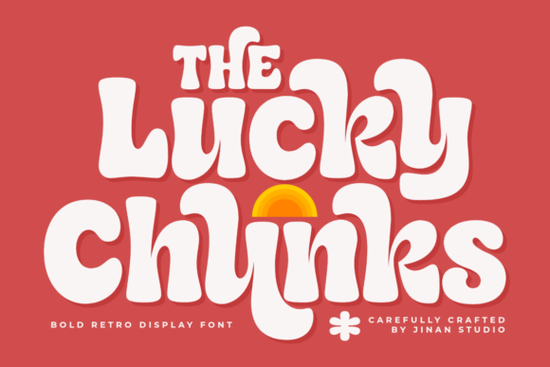
If you're looking for a display font that feels both nostalgic and fresh, Lucky Chunks Font might be exactly what your next project needs. With its bold, rounded letterforms and groovy 70s-inspired charm, it brings warmth and personality to everything from t-shirt designs to café menus. Unlike overly stiff retro fonts, Lucky Chunks balances chunky shapes with soft curves, making it approachable and fun without sacrificing legibility.
What sets this font apart is how effortlessly it fits into creative projects that lean into handmade aesthetics or vintage vibes. Whether you’re designing packaging for a small-batch product, creating social media banners for a local event, or crafting custom stickers for your Etsy shop, Lucky Chunks adds character without overwhelming your layout.
When should you use Lucky Chunks in your designs?
This font shines in contexts where friendliness and expressiveness matter more than formal precision. Think:
- Branding for cafés, bakeries, or boutique shops its cheerful tone pairs well with warm color palettes and hand-drawn illustrations.
- Kids’ products or playful merchandise the soft edges feel inviting rather than harsh or corporate.
- Retro-themed posters, album covers, or invitations it captures the spirit of the 70s without leaning too heavily into kitsch.
- Craft projects like embroidery patterns or vinyl decals the bold strokes hold up well at larger sizes and in physical formats.
It’s worth noting that while Lucky Chunks works beautifully as a headline or logo font, it’s not meant for body text. Its distinct personality is best reserved for short phrases where impact matters most.
How does it compare to other playful display fonts?
If you’ve used fonts like Bubble Lovers, you’ll notice Lucky Chunks has a more grounded, slightly rustic feel less bubblegum pop, more sun-bleached poster from a vintage record store. Meanwhile, Comic Pop leans into comic book energy with sharper angles, whereas Lucky Chunks stays smooth and rounded throughout.
For those who enjoy the hand-lettered charm of Helpful Person, Lucky Chunks offers a bolder, more structured alternative still friendly, but with stronger presence. And if you love the sweet whimsy of Sweetie Pop, consider Lucky Chunks when you need something with a bit more weight and retro confidence.
Even compared to Vintage Varsity, which channels classic athletic nostalgia, Lucky Chunks feels more relaxed and boho less about school pride, more about good vibes and slow mornings.
What kinds of projects pair best with this style?
Because of its warm, handmade quality, Lucky Chunks works especially well when combined with natural textures (like kraft paper or linen), earthy tones (mustard yellow, olive green, burnt orange), and organic design elements (wavy lines, doodles, or botanical motifs). It’s a favorite among print-on-demand sellers creating quote mugs, tote bags, or wall art with uplifting messages.
Small business owners also find it useful for seasonal promotions imagine “Summer Sale” spelled out in Lucky Chunks over a sun-drenched photo, or “Grand Opening” on a chalkboard-style sign outside a new ice cream shop. The font’s inherent optimism makes it ideal for anything meant to feel welcoming and joyful.
Lucky Chunks includes standard uppercase and lowercase letters, numerals, and punctuation, along with basic language support for Western European characters. While it doesn’t come with alternates or swashes, its consistent rhythm means you can often achieve visual interest through spacing, color, or layering with simple shapes.
Before committing, consider your project’s scale: because of its thick strokes, it may appear heavier on screen than in print. Always test it at your intended size especially if you’re using it for embroidery or laser cutting, where fine details matter.
Ready to try it? If your current project calls for a font that’s bold but not brash, retro but not dated, and full of soul without being fussy, Lucky Chunks could be your new go-to.
Before you start designing, check this quick list:
- ✅ Is your message short and impactful? (Best for headlines, logos, or single phrases)
- ✅ Are you aiming for a 70s, boho, or handmade aesthetic?
- ✅ Will it be used at a large enough size to show off those chunky curves?
- ✅ Have you tested contrast against your background? (Light font on dark backgrounds often works beautifully)
If you answered yes to most of these, Lucky Chunks is likely a great fit and a fun one at that.